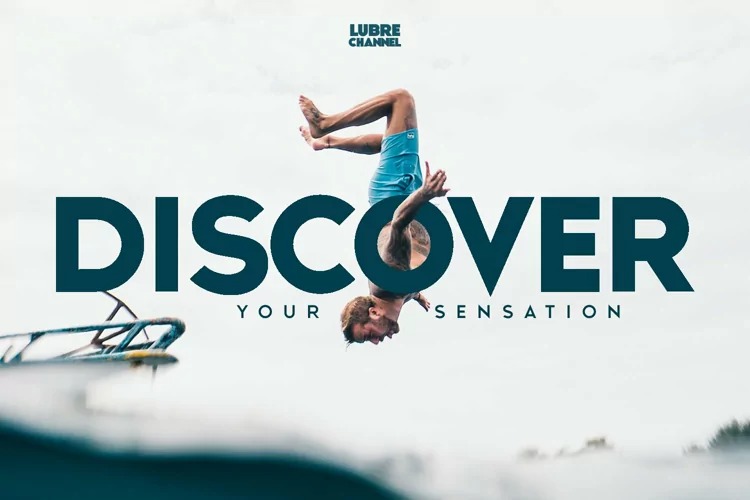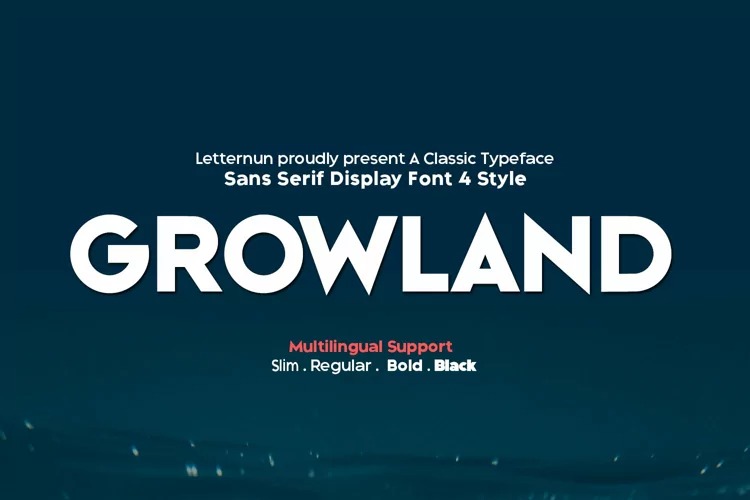
Growland Typeface
Growland Sans Serif Typeface is a sans serif thick typeface crafted & designed by Letternun. Simple and clean but also gives a modern retro vibes. Made for any professional project branding. It is perfect for printing, branding and quotes. works well in any graphic design project and purpose as a display typeface.